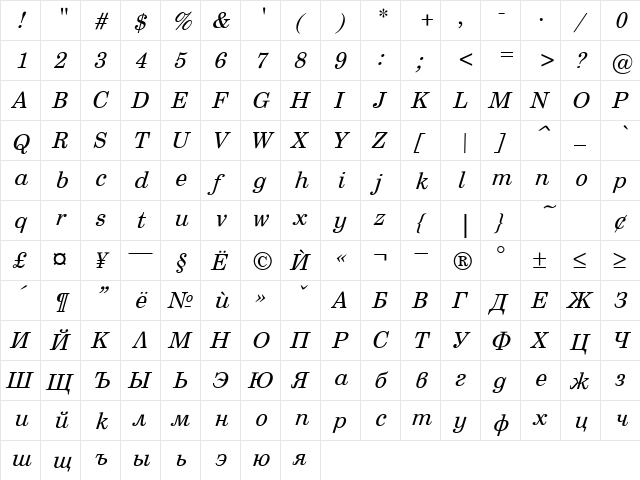
Sentry Italic
Design Context for Sentry Typeface
Sentry takes a measured approach to typography — its balanced proportions and neutral character make it a reliable workhorse for both digital and print work. Its italic angle brings a sense of urgency and motion to the letterforms.
Pro Tip: Use Sentry for emphasis, pull quotes, and subheadings where its slanted energy can add rhythm to the layout.